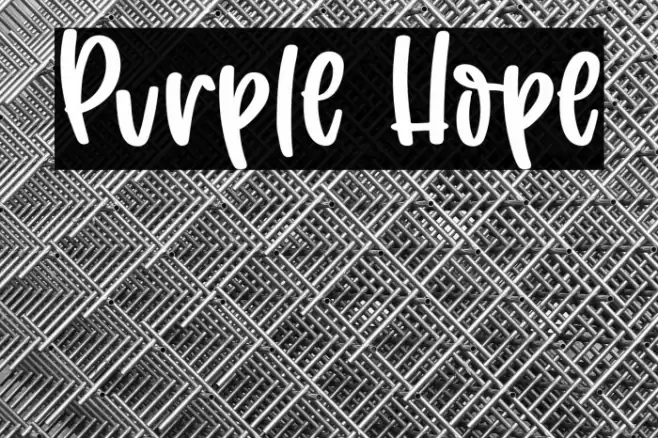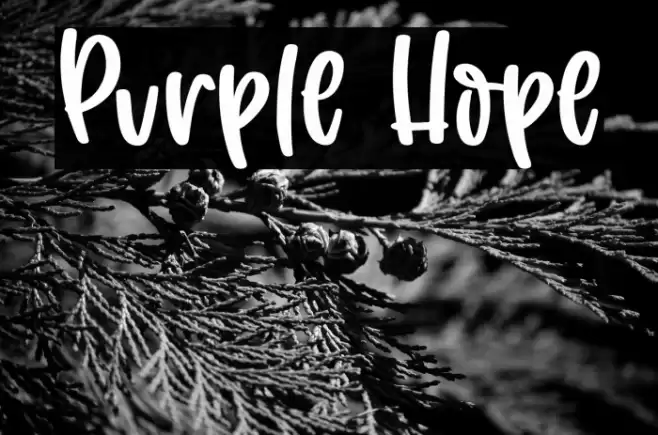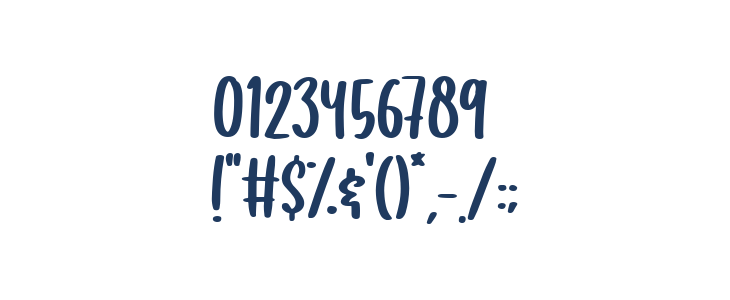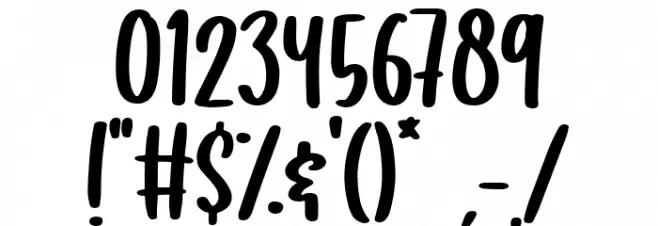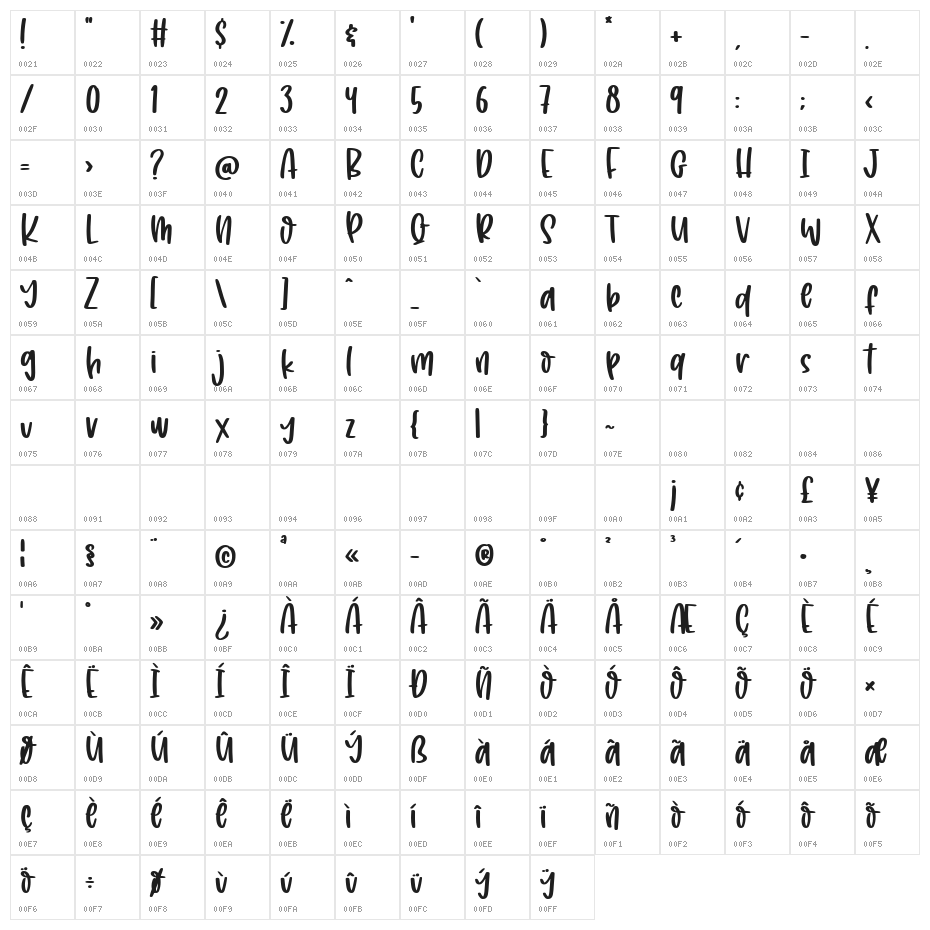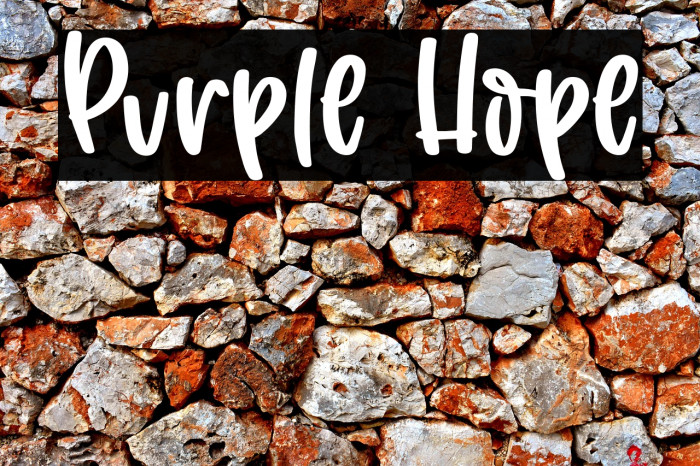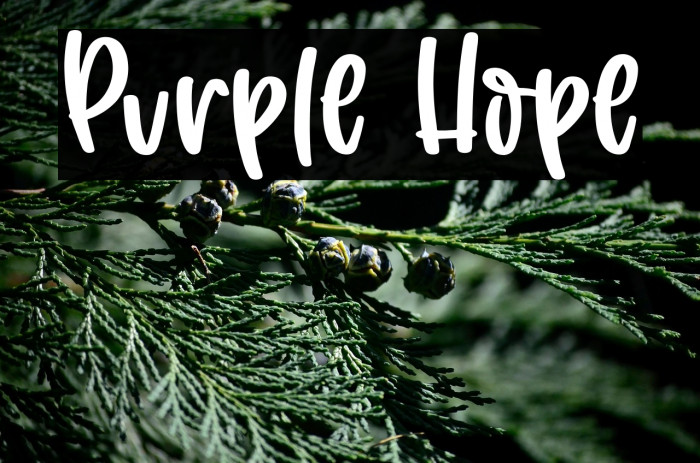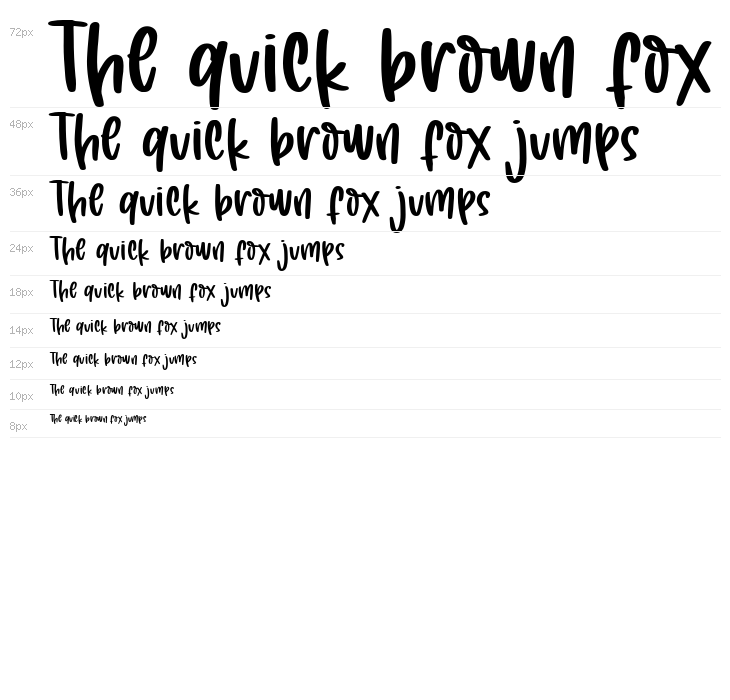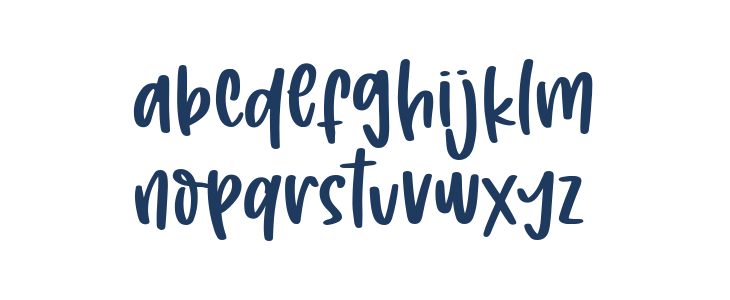
Purple Hope Font
Purple Hope Description
This font features a playful and bold handwritten style with a casual and friendly appearance. The letters are slightly slanted, giving it a dynamic and energetic feel. The strokes are thick and consistent, providing a strong visual impact. The characters are well-spaced, ensuring readability while maintaining a cohesive look. The font includes both uppercase and lowercase letters, numerals, and a variety of special characters, making it versatile for different design needs.
A bold, playful handwritten font with a dynamic and friendly style from Regular fonts.
- Proposed Projects: Ideal for greeting cards, social media graphics, children's book covers, and playful branding projects.
- Overall Style: Playful